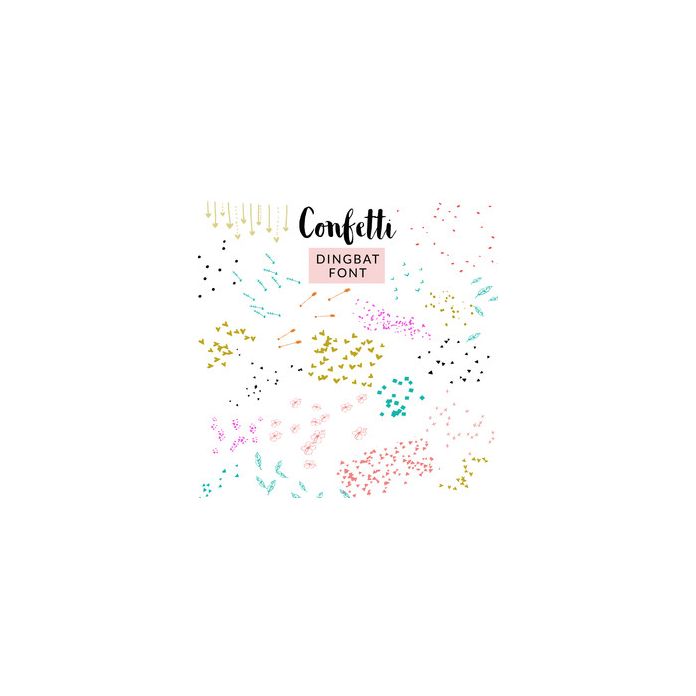
confetti font by angie makes
Use this Cute Confetti Font to Add Tons of Details to Your Designs. Hearts, Arrows, Dots, and More Included for All Celebrations!